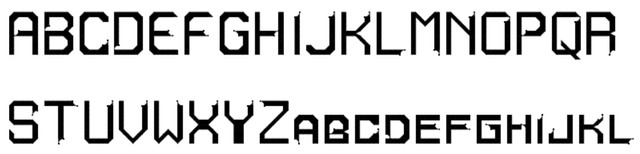
I am not sure how accurate the font is, but it will be useful when making keys. Im going to add the watermark for now until I can complete the last couple of letters.**In theory it is completed but unfortuantely the software im using to compile the ttf file for open use isnt working for some reason. I can only create a font file with 4 letters.
Dodo = D
Hopper = J & M
Vicarya = V
Stag (LQ) = X
No Q yet so... I'll wait
When the other letters come out for me to make them
I noted that in my comments.
this is actually useful I was having issues with designing the text to spell swinging spider, ability: web, that you would see on a progrise key.